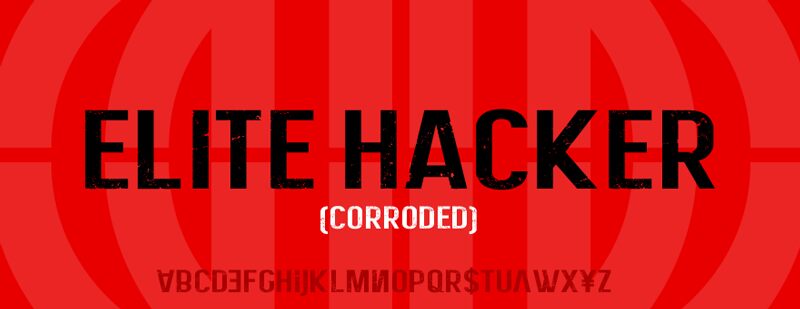
Elite Hacker (Corroded)
Elite Hacker (Corroded) is a free eroded display font with dense, wide sans serif capitals and a deliberately disrupted industrial surface. Several letters flip or reverse familiar forms, so the alphabet carries a coded, disorienting edge beyond its scraped texture.
Digital graphics give this lettering a convincing home, especially useful in cybercrime documentaries, hacker-themed game interfaces, underground music promotion, and dystopian film titles. The result feels closer to damaged signage than clean typography. In magazine design, it can turn a technology feature opener into part warning label and part visual evidence, with the distress echoing corrupted data or surveillance imagery.
The font includes uppercase letters and a set of alternates instead of lowercase letters, as well as accented characters.